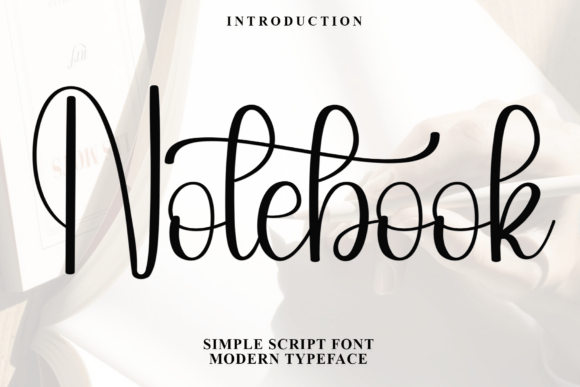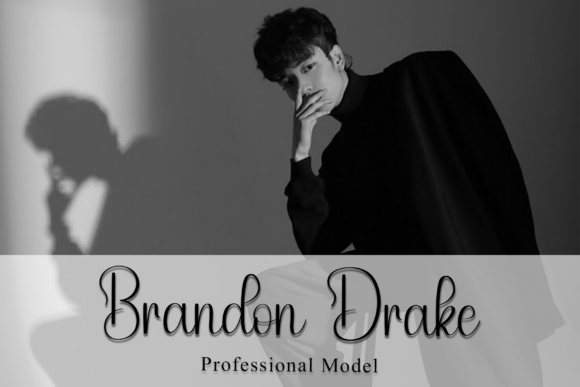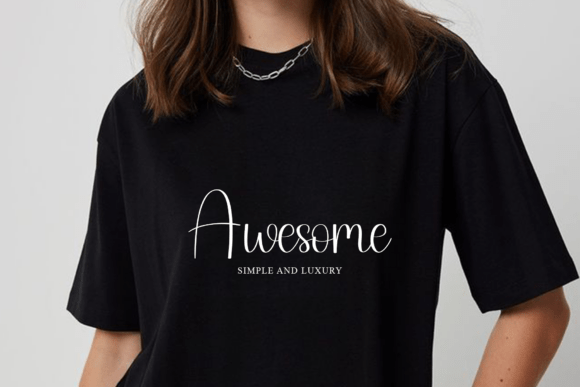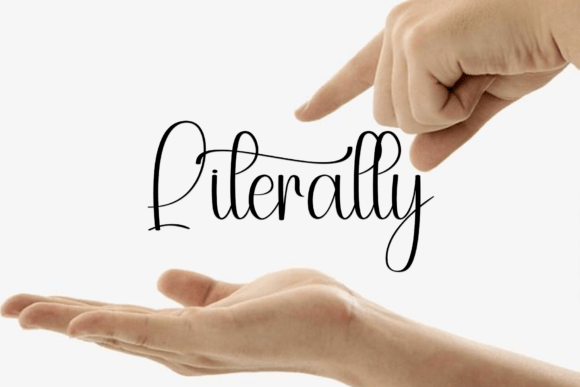
Notebook Font: Elegant Script for DIY & Cricut Projects
About the Notebook Font
Discover the charm of Notebook Font. This font is a perfect blend of modern aesthetics and classic appeal. Notebook is a magical script font carefully created with a touch of elegance. Whether you’re looking for fonts for Instagram or calligraphy scripts for DIY projects, this font will turn any creative idea into a true piece of art!
Notebook excels in short, impactful applications such as logos, headlines, and social media posts. Its elegant, slightly whimsical nature makes it ideal for branding projects targeting a feminine or creative audience, or for packaging designs requiring a touch of sophistication. Avoid using Notebook for large blocks of text or UI elements; its script style is less legible at smaller sizes and in continuous paragraphs.
This font pairs well with clean sans-serif fonts like Open Sans or Lato for a balanced contrast, providing readability without sacrificing visual interest. For a more playful feel, consider pairing it with a geometric sans-serif such as Montserrat. A classic serif like Garamond could also be used to create a timeless and sophisticated feel.
Notebook’s personality is best described as elegant yet approachable; it conveys a sense of charm and personality without being overly fussy or difficult to read in its intended applications.
Notebook Font Usage Examples
Notebook Font Example